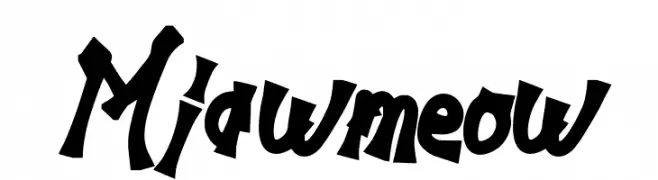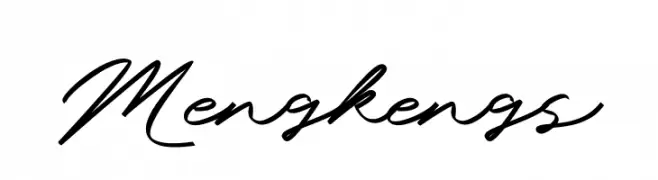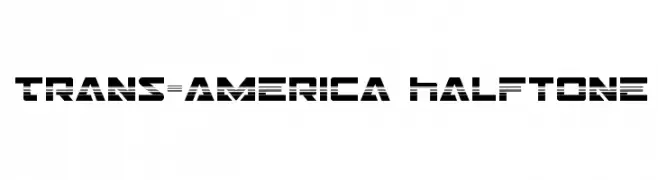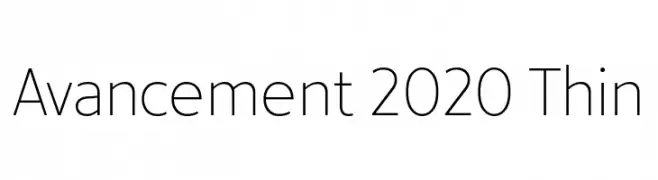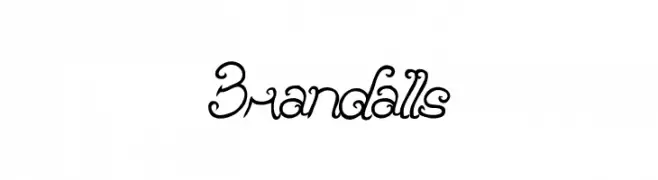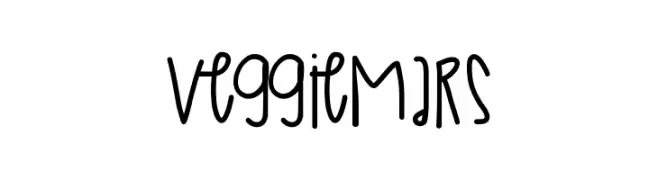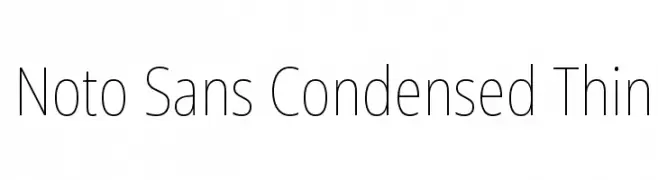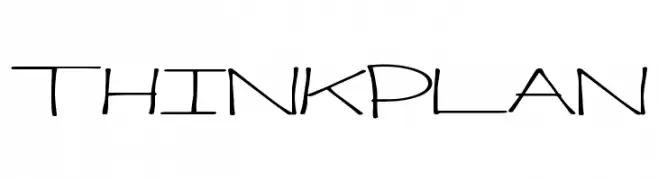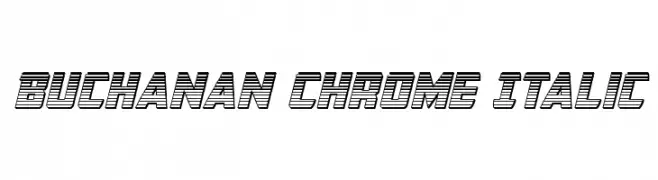
A playful, bold outline font with a three-dimensional look.
A bold, dynamic handwritten font with thick, uneven strokes.
A bold, bomb-themed decorative font with explosive character designs.
A cursive script font with elegant, flowing strokes.
A bold, futuristic font with a halftone effect and geometric design.
A decorative font with a rope-like texture, perfect for creative and playful designs.
A bold, condensed, and italicized font with sharp, angular characters.
A bold, flowing script font with elegant, cursive letterforms and a slight slant.
A thin, modern font with a clean and elegant design.
A playful, hand-drawn script font with flowing, connected characters.
A playful handwritten font with tall, narrow letters and rounded edges.
A modern, thin, and condensed sans-serif typeface with excellent legibility.
A modern, geometric font with thin, elongated letterforms and a futuristic style.
A minimalist, hand-drawn font with thin, uneven strokes and a casual, informal style.
A dynamic script font with elegant curves and fluid strokes.
A bold, italicized font with a chrome-like, three-dimensional appearance.
A modern, cursive script font with elegant, flowing strokes.
A bold, distressed font with a rugged, grunge style.
A playful, bubble-like font with rounded, bold characters.
A playful, bold font with a hand-drawn, whimsical style.
A futuristic, angular font with geometric shapes and a modern slant.
A bold, geometric font with a modern disco-inspired aesthetic.
A playful, handwritten font with a graffiti-like, artistic style.
A bold, modern serif font with dynamic strokes and sharp serifs.
An abstract, brushstroke-inspired font with a bold and chaotic style.
A modern-vintage font with curved, elongated letterforms and art deco influences.
A bold, shadowed font with a textured, three-dimensional effect.
An elegant script font with intricate swashes and high contrast strokes.
A lively handwritten script font with dynamic strokes and playful contrast.
A playful, bold font with rounded, cartoonish characters.
A bold, geometric font with a modern, industrial style.
A chaotic, splatter-inspired decorative font with irregular, jagged edges.
A bold, italicized font with a futuristic halftone effect.